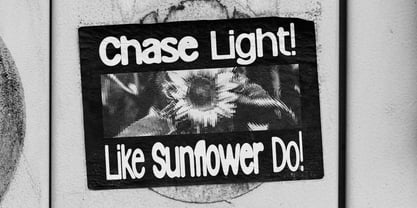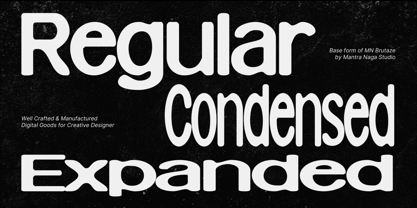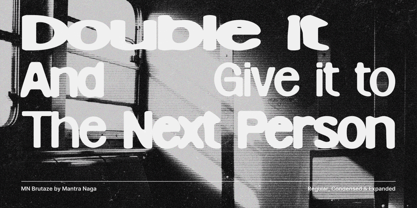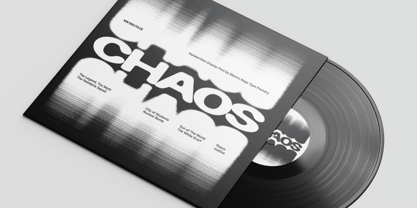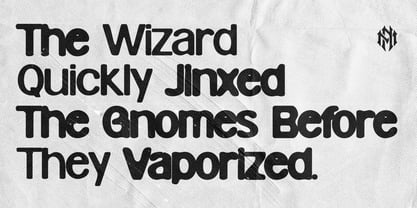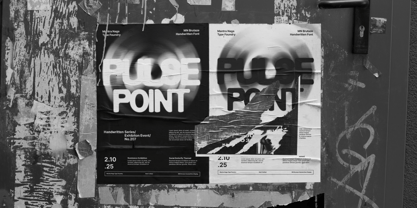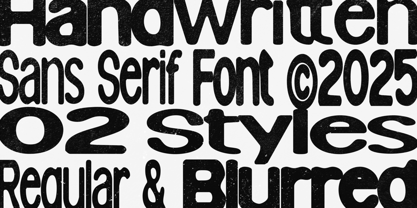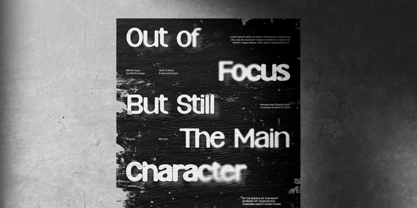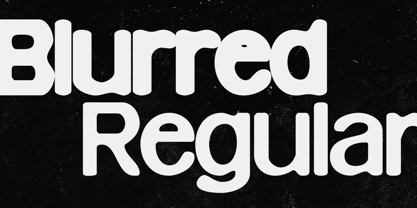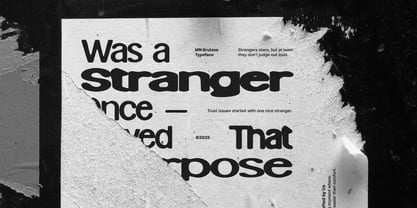
MN Brutaze
by Mantra Naga Studio
The MN Brutaze Font Family was designed by Fredo Eka Pratama and published by Mantra Naga Studio. MN Brutaze contains 6 styles and family package options.
MN Brutaze is a unique handwritten sans serif typeface that embraces intentional messiness. It emerges from the fusion of brutalism and hand-drawn aesthetics, celebrating the rough edges that infuse design with vitality. Available in two distinct styles: Regular, which is bold and organic, reminiscent of fresh ink applied with confidence, and Blurred, a smudged ink-bleed variant that retains the handwritten essence while introducing a dynamic sense of motion and texture. Each style features three width variations: Condensed, Normal, and Expanded, enhancing Brutaze's versatility for expressive headlines, experimental posters, and striking visual statements that naturally demand attention. Brutaze is not about perfection; it embodies raw, instinctive creativity, appealing to designers who value the charm of imperfection.